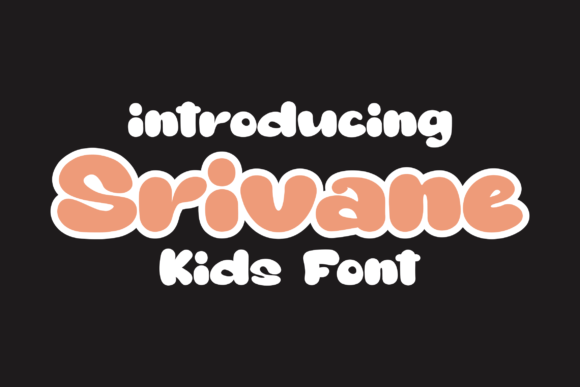
Behold Srivane Kids, the elegant, classy, and modern display font that will make your designs shine! Elevate your fashion and apparel projects to the next level with its refined and captivating style. Picture your brand's logo adorned with Srivane Kids, exuding a timeless sophistication that demands attention. Create stunning album covers that encapsulate the essence of your music, or design eye-catching social media posts that draw your audience in.
Srivane Kids is not just limited to digital spaces; it's a versatile companion for physical designs too. Create captivating posters that stand out in the crowd, conveying your message with a touch of sophistication. Unleash your creativity with Srivane Kids and transform your branding materials into works of art.
Whether you're designing a magazine, crafting social media posts, or seeking the perfect font for your advertisements, Srivane Kids delivers. Its clean lines and elegant curves create a visual impact that captivates readers and leaves a lasting impression.
Don't settle for ordinary fonts; embrace the extraordinary with Srivane Kids. Embark on a design journey where every project is a masterpiece. Let Srivane Kids be your creative partner, transforming your ideas into visually stunning realities.
Discover the endless possibilities of Srivane Kids today and elevate your designs to new heights. Step into a world of visual enchantment where elegance meets modernity. Srivane Kids awaits you, ready to unleash your creativity and captivate your audience.